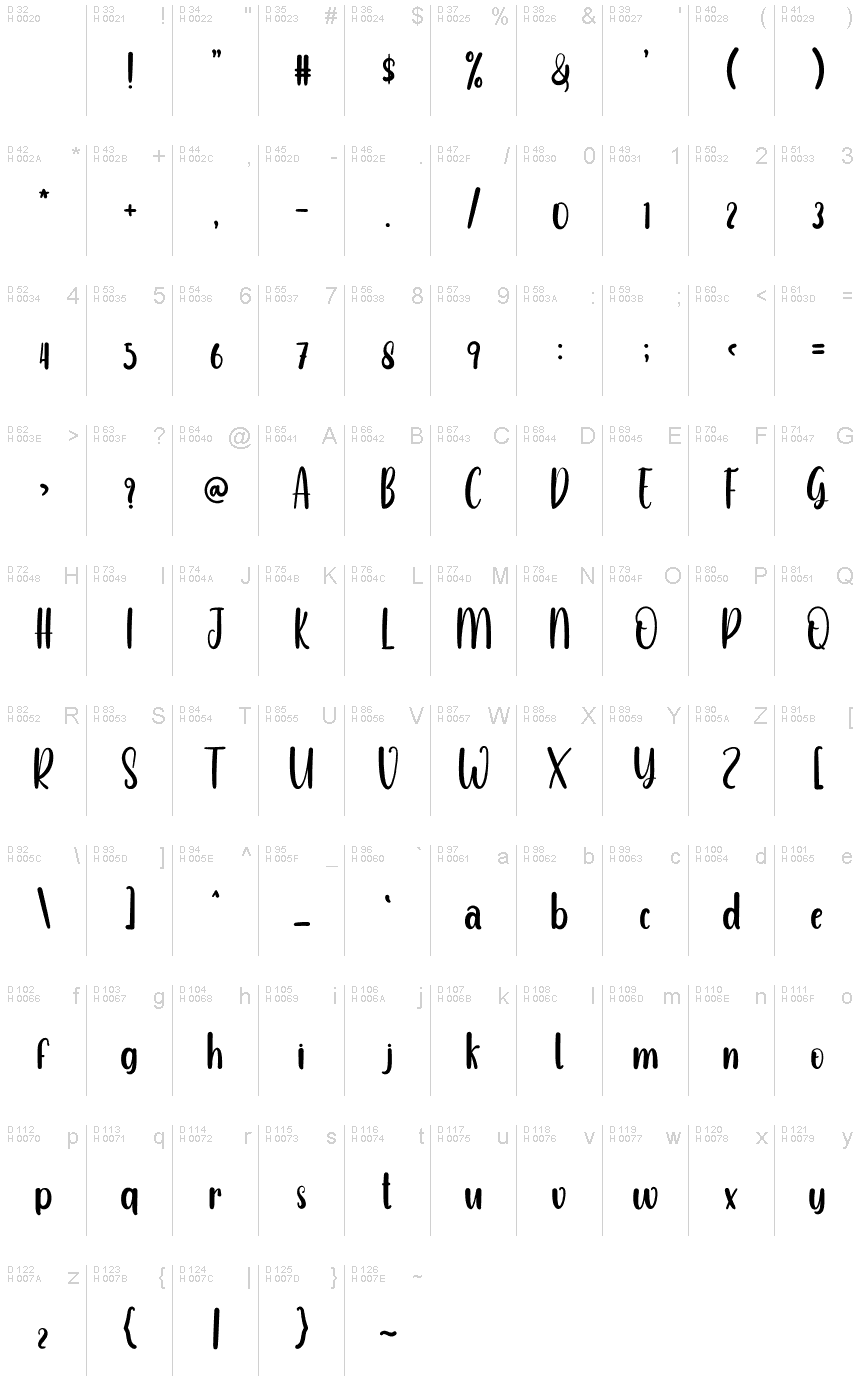
Banana
Banana, crafted by PiPi Creative, presents a refreshing twist to typographic design with its handwritten allure and extra-condensed width. The font's unique characteristics embody a playful yet sophisticated charm that captivates at first glance. Each stroke conveys a bespoke quality reminiscent of personalized ink on paper, ensuring that any project it graces will stand out with an authentic touch.
The aesthetic appeal of Banana lies in its ability to balance whimsy with elegance. Its slender profile is distinctive, offering a delightful visual rhythm that harmonizes beautifully across various applications. Whether it's for branding, invitations, or editorial designs, this font exudes versatility without compromising on style.
Banana's handwritten style infuses warmth and character into every word, making it an ideal choice for those seeking to inject personality into their creative endeavors. The extra-condensed form not only saves space but also offers a contemporary edge that can elevate design projects to new heights. Embrace the distinctive flair of Banana for your next venture and watch as it transforms the ordinary into something memorably exquisite.